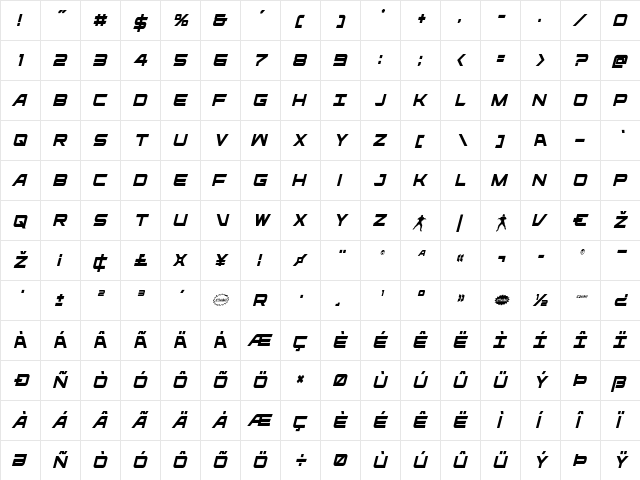
Ghost Clan Condensed Italic Font Preview
Design Context for Ghost Clan Condensed Italic Typeface
Ghost Clan Condensed Italic is a composed and adaptable typeface that performs quietly and consistently across a wide range of design contexts. The dynamic lean of this cut emphasises speed and emphasis in any layout. The condensed width makes it efficient for tight spaces without sacrificing legibility.